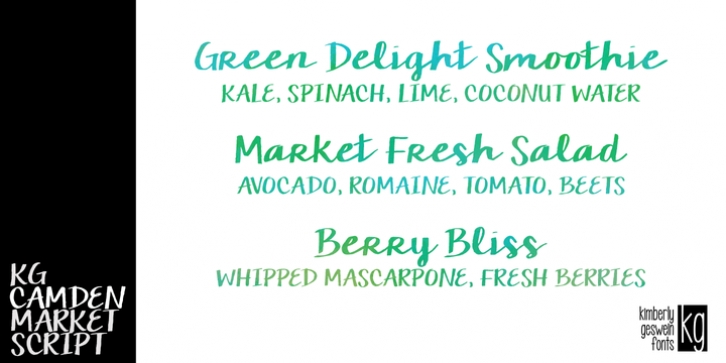
KG Camden Market Script downloadDesigner: Kimberly Geswein
Publisher: Kimberly Geswein
KG Camden Market Script is a whimsical, hand-lettered brushstroke watercolor font.